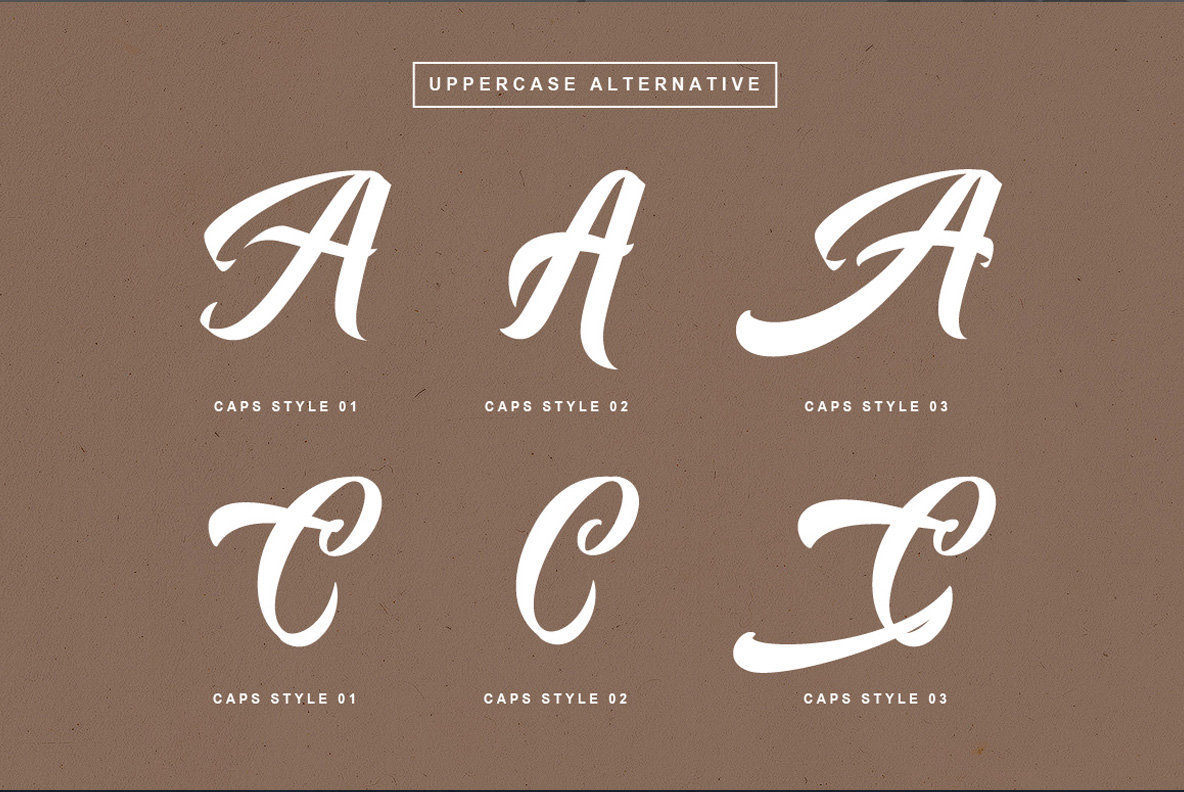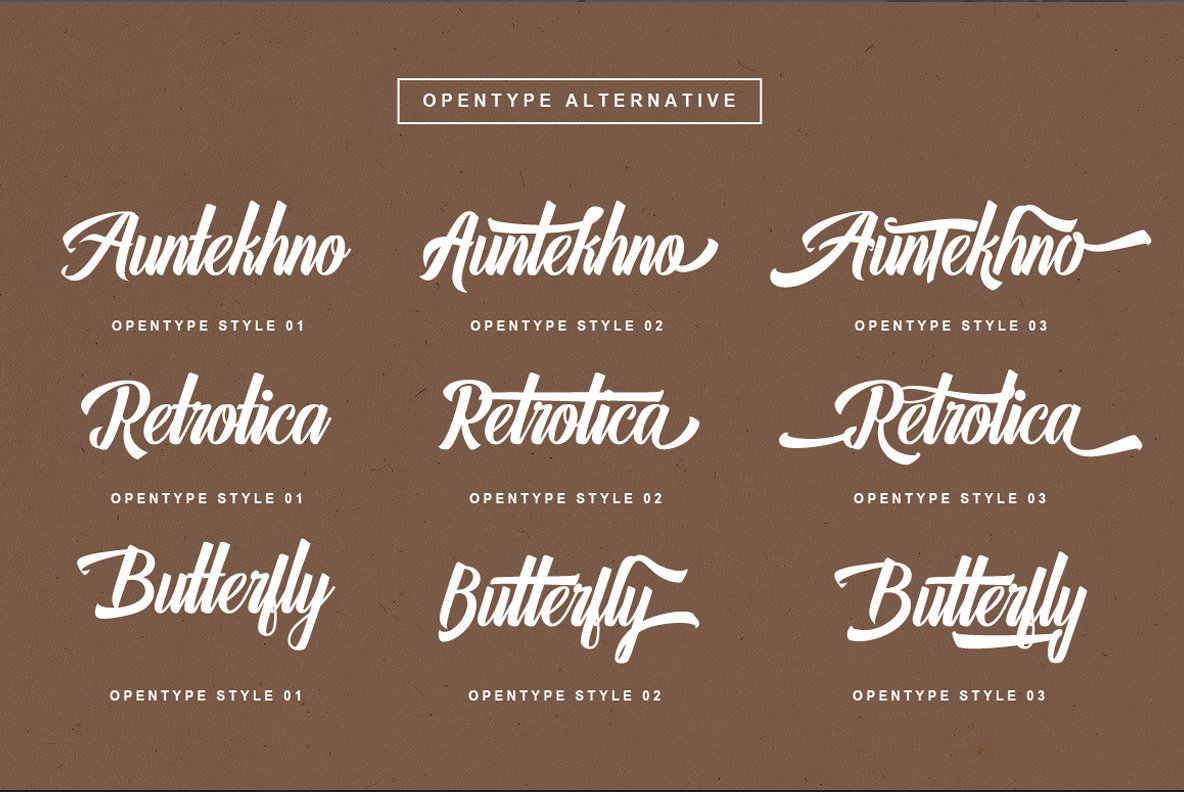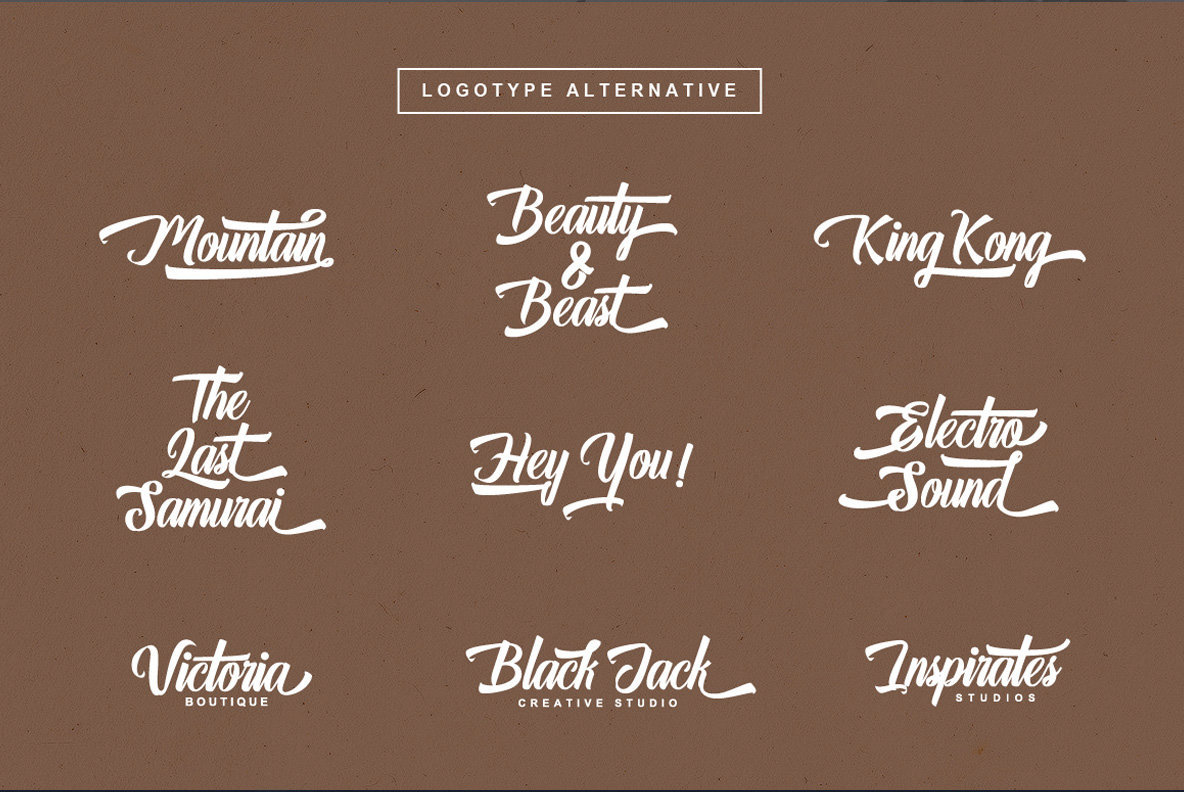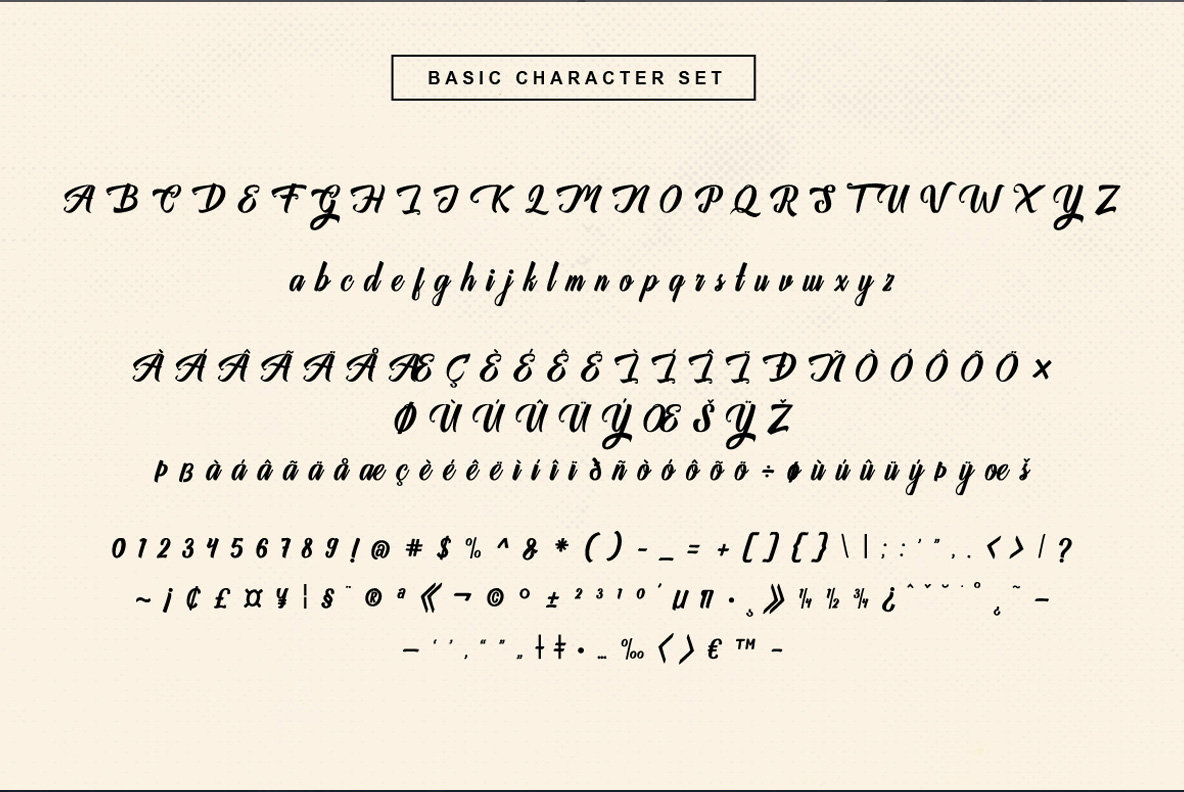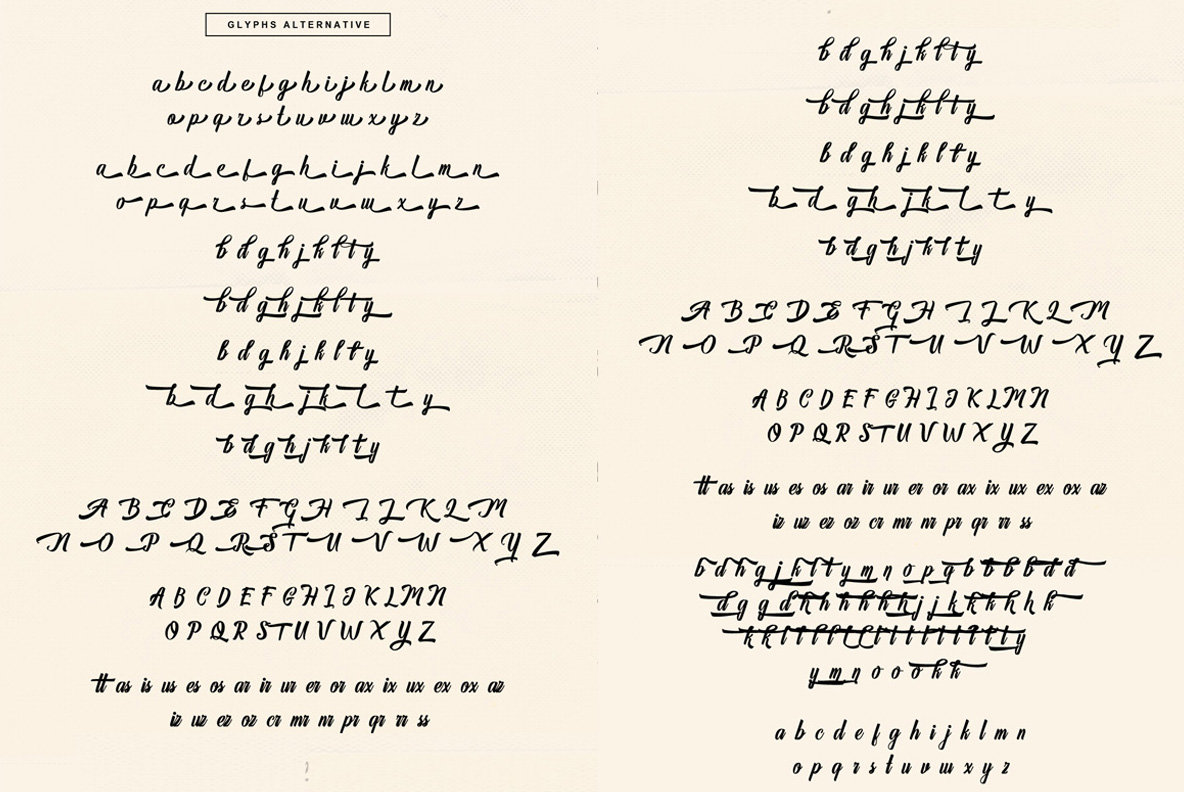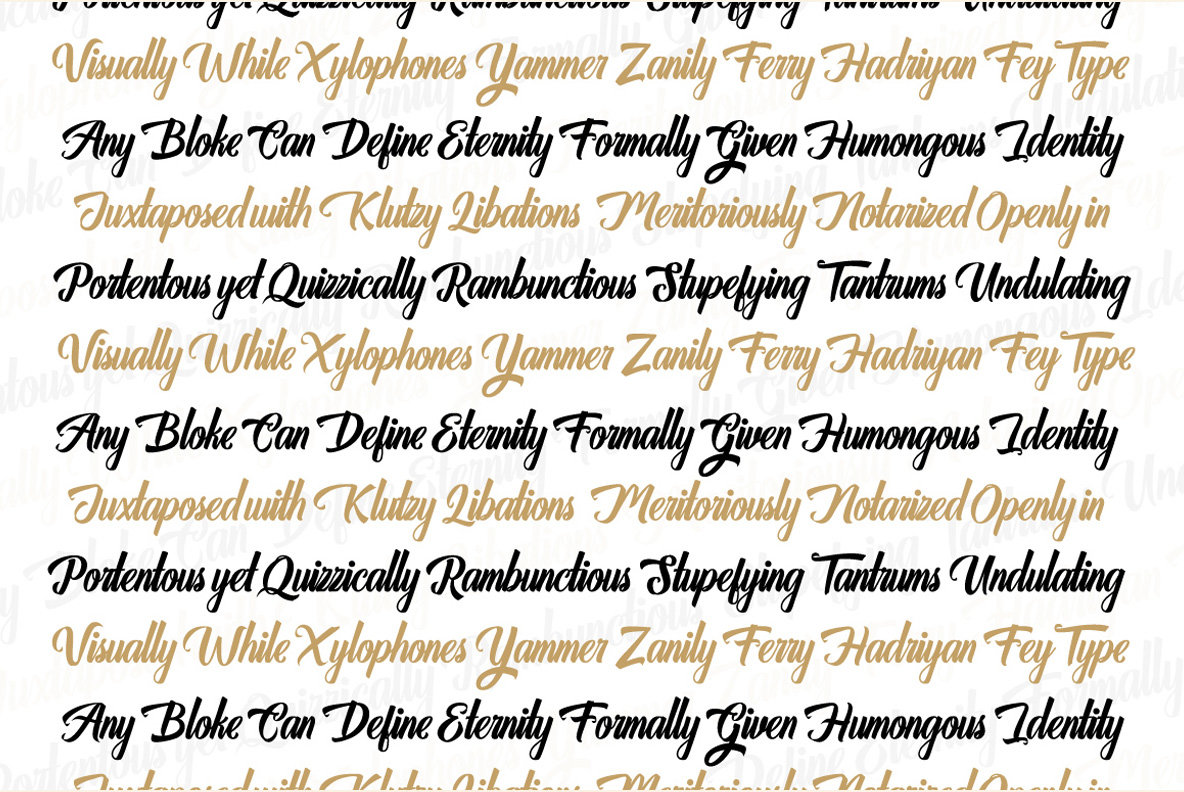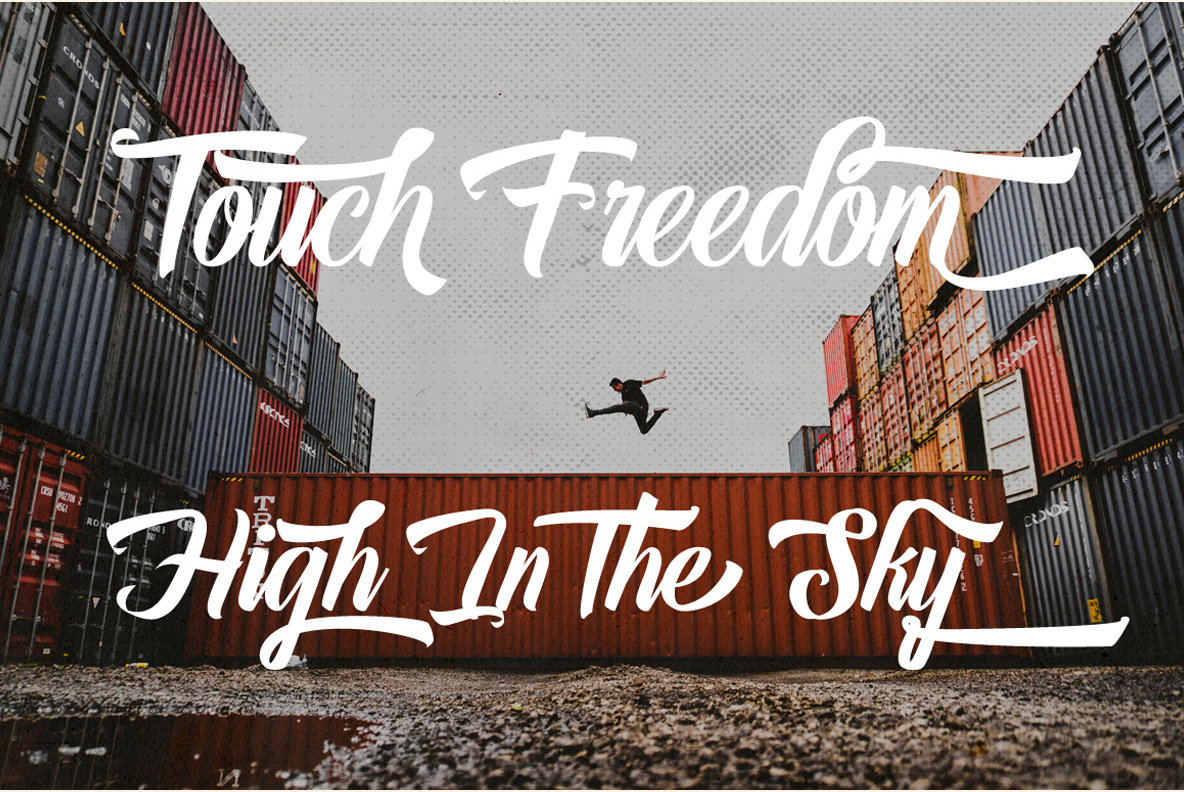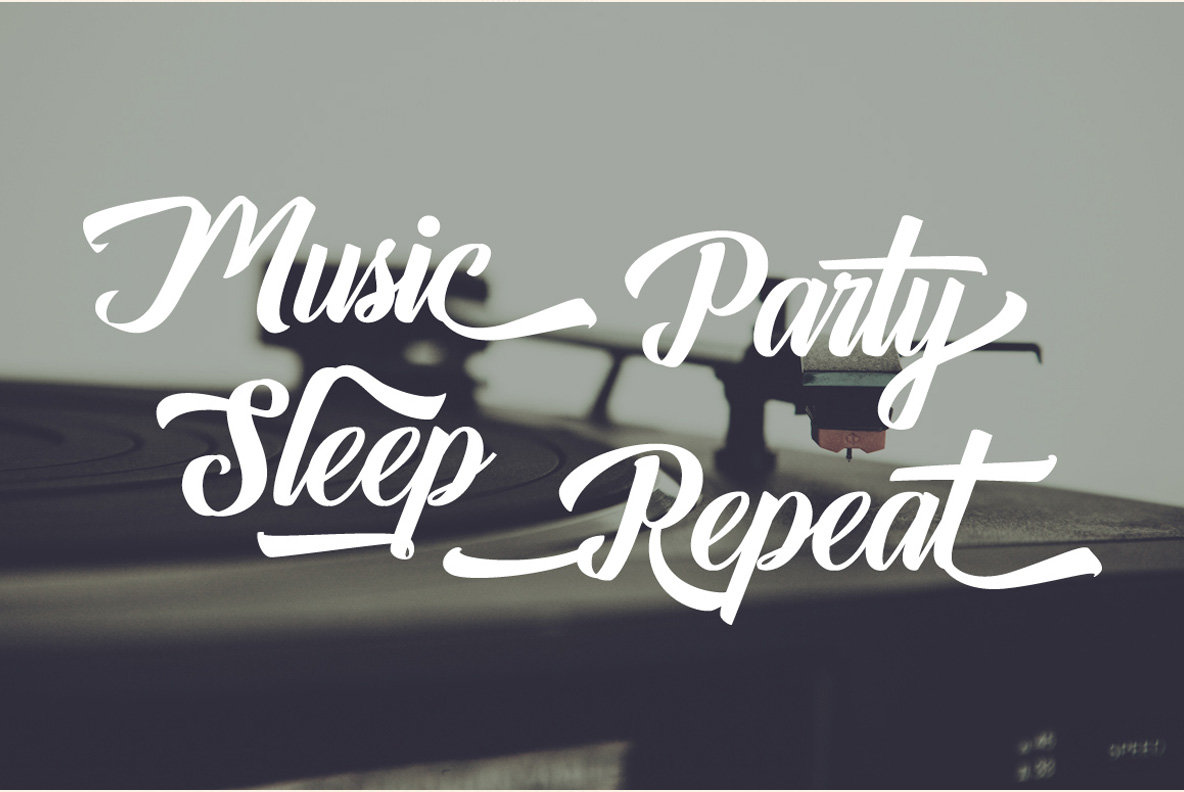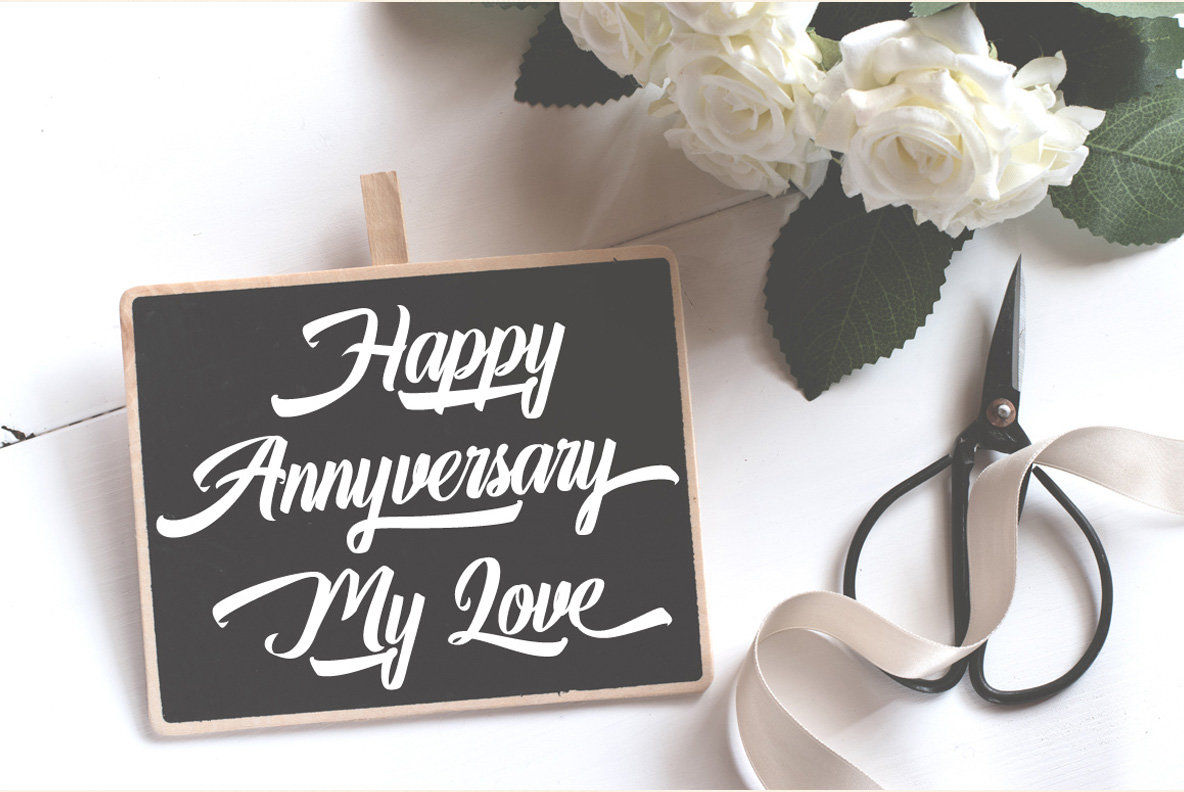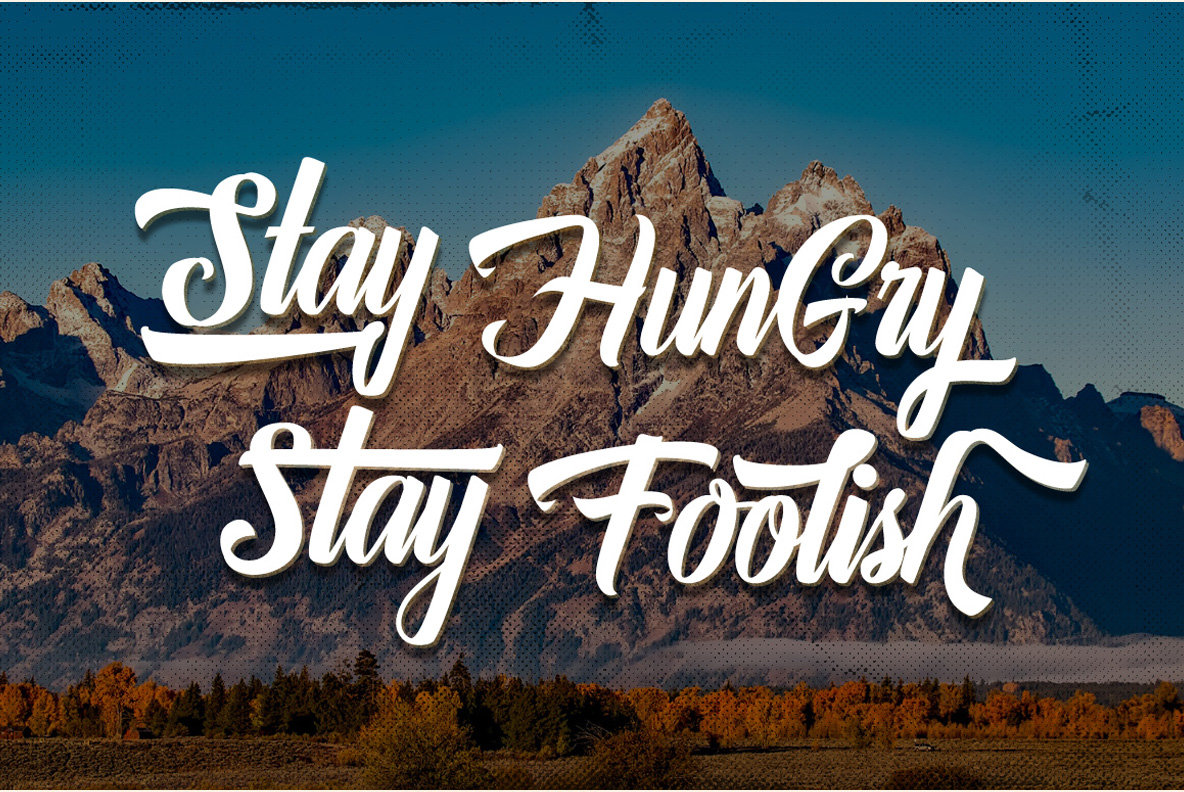
Auntekhno Font
Auntekhno Script
Auntekhno Script offers a vintage brush-inspired aesthetic, ideal for creating designs infused with classic charm. This handlettered typeface is well-suited for diverse projects such as branding designs, wedding invitations, event promotions, and more.Auntekhno: Vintage Handlettering Script